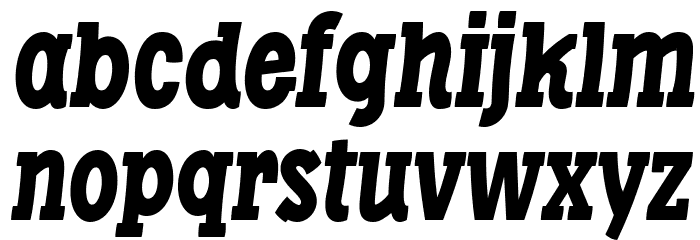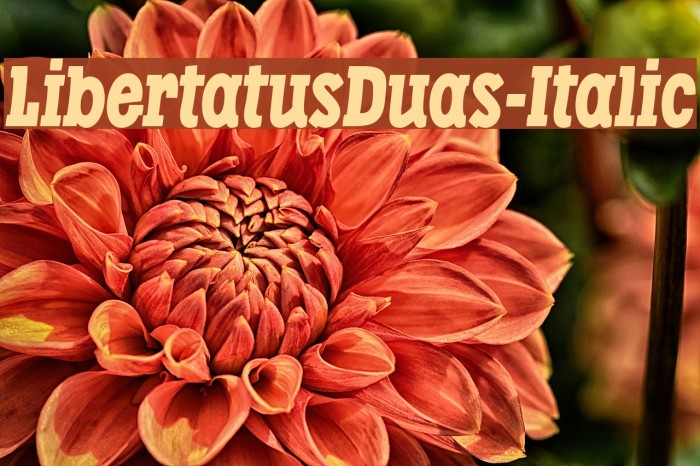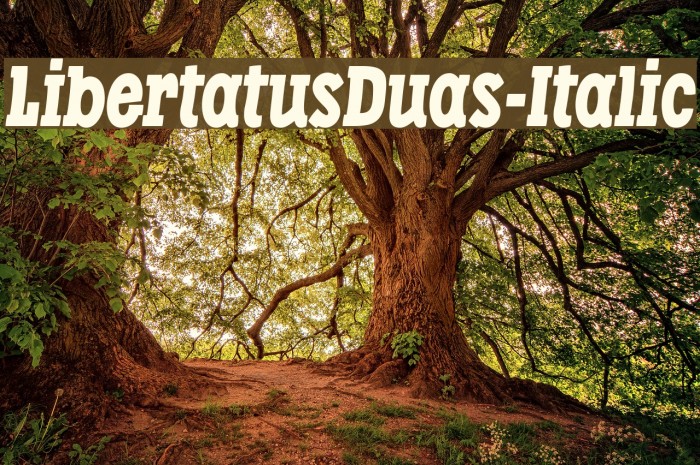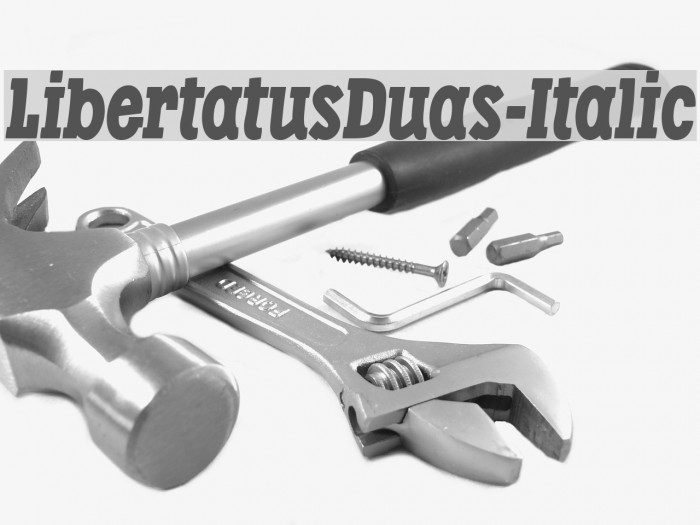
LibertatusDuas-Italic Font
This font exhibits a bold and dynamic style with a pronounced italic slant, giving it a sense of movement and energy. The characters are robust and well-defined, with thick strokes that enhance readability. The uppercase letters are slightly condensed, while the lowercase letters maintain a consistent height, contributing to a cohesive appearance. The numerals and special characters are designed to match the overall boldness, ensuring uniformity across all text elements. This font's strong presence makes it suitable for impactful designs.
A bold, italic font with a dynamic and energetic style.
- Proposed Projects: Ideal for branding, advertising, headlines, and posters where a strong, impactful font is needed.